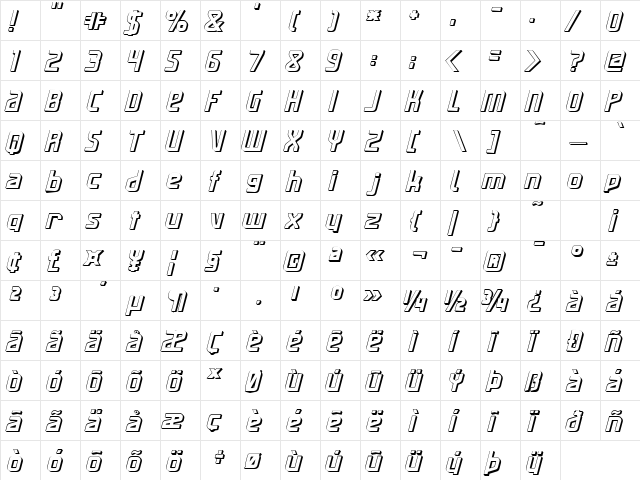
Maassslicer3D Regular
Design Context for Maassslicer3D Typeface
Maassslicer3D is a composed and adaptable typeface that performs quietly and consistently across a wide range of design contexts.